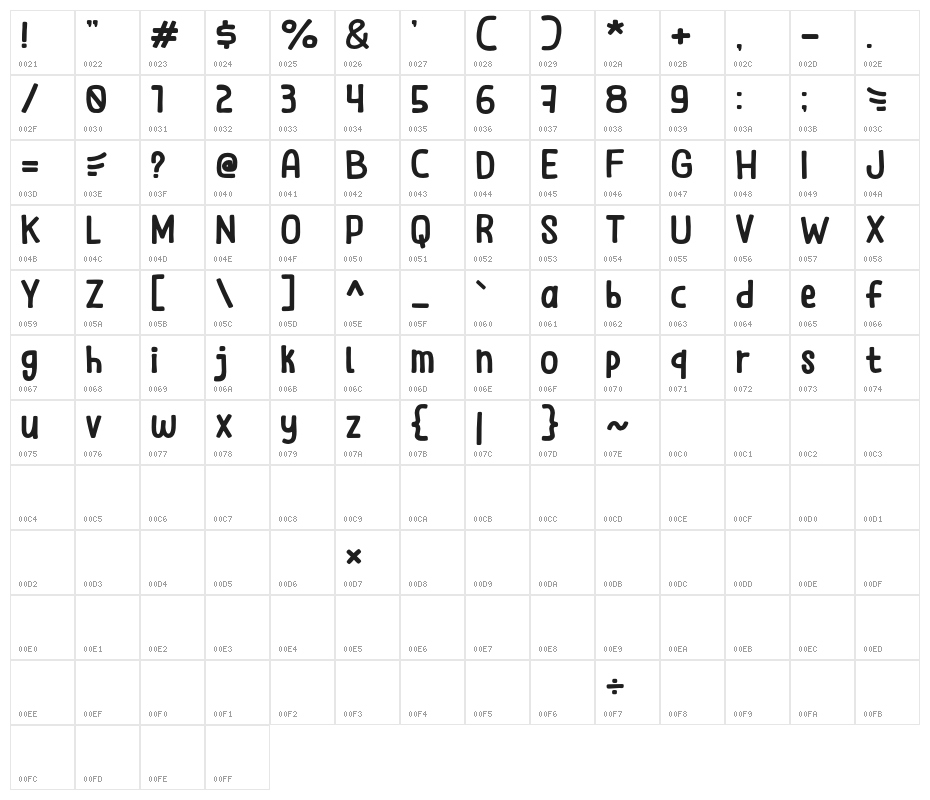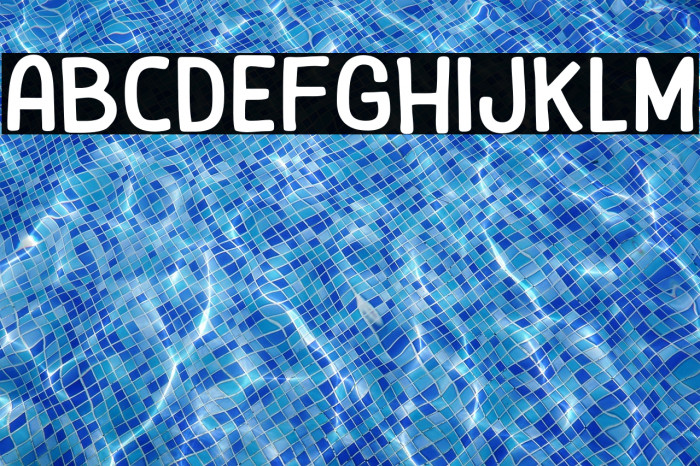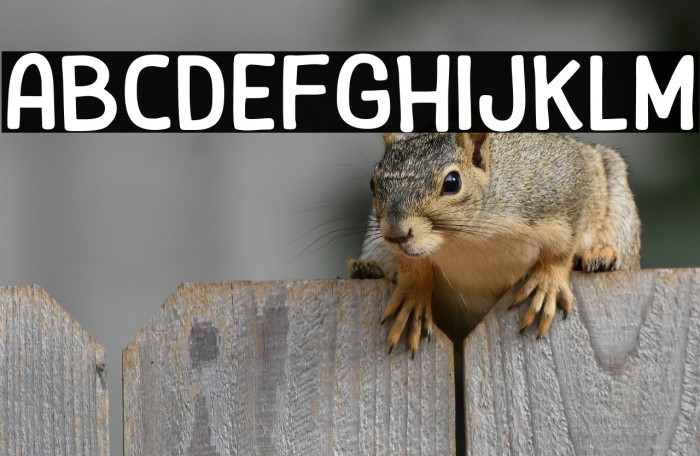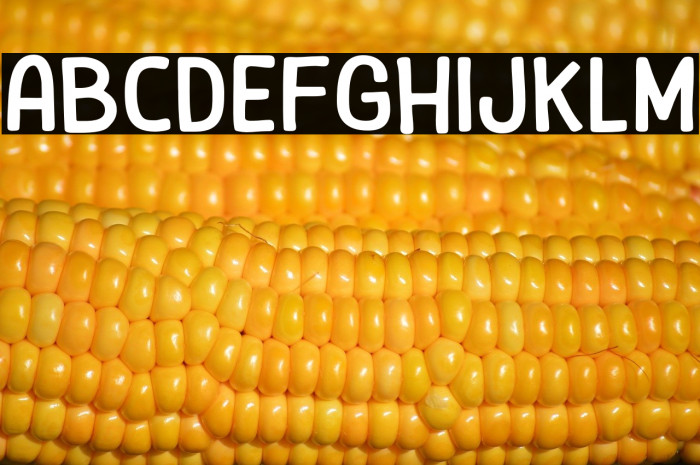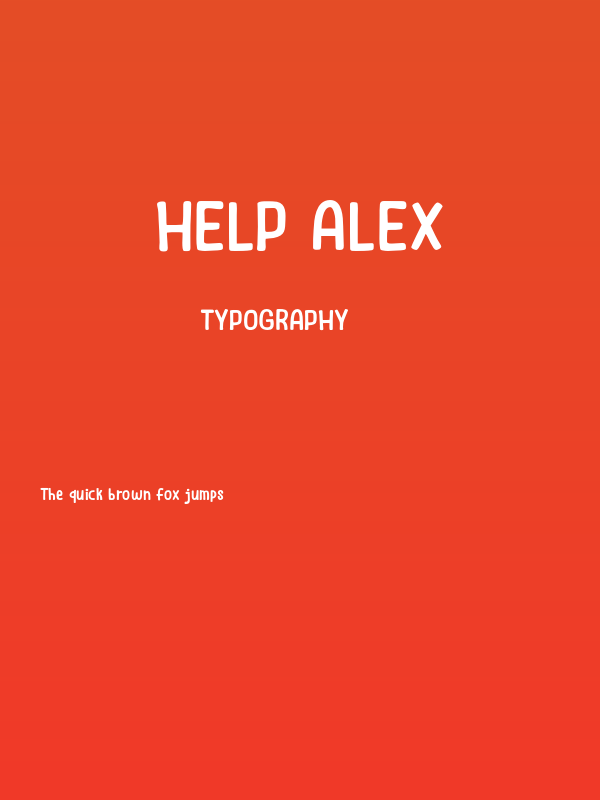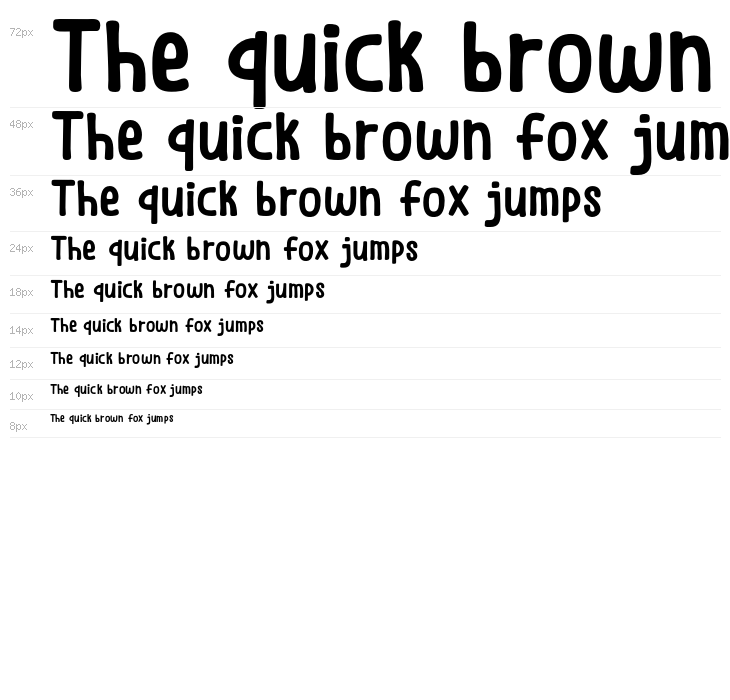
Help Alex Font
Help Alex Description
This playful and rounded font features a friendly and approachable design, with smooth curves and a consistent stroke width that gives it a casual and informal feel. The characters are slightly elongated, adding a unique touch to its overall appearance. The font maintains a uniform thickness throughout, ensuring readability while conveying a sense of warmth and friendliness. Its rounded edges and soft lines make it ideal for projects that aim to evoke a sense of fun and creativity. The font includes a full set of uppercase and lowercase letters, numbers, and a variety of special characters, making it versatile for different design needs.
| Overall Style | Playful |
| Proposed Projects | Ideal for children's books, playful branding, casual invitations, and creative posters. |